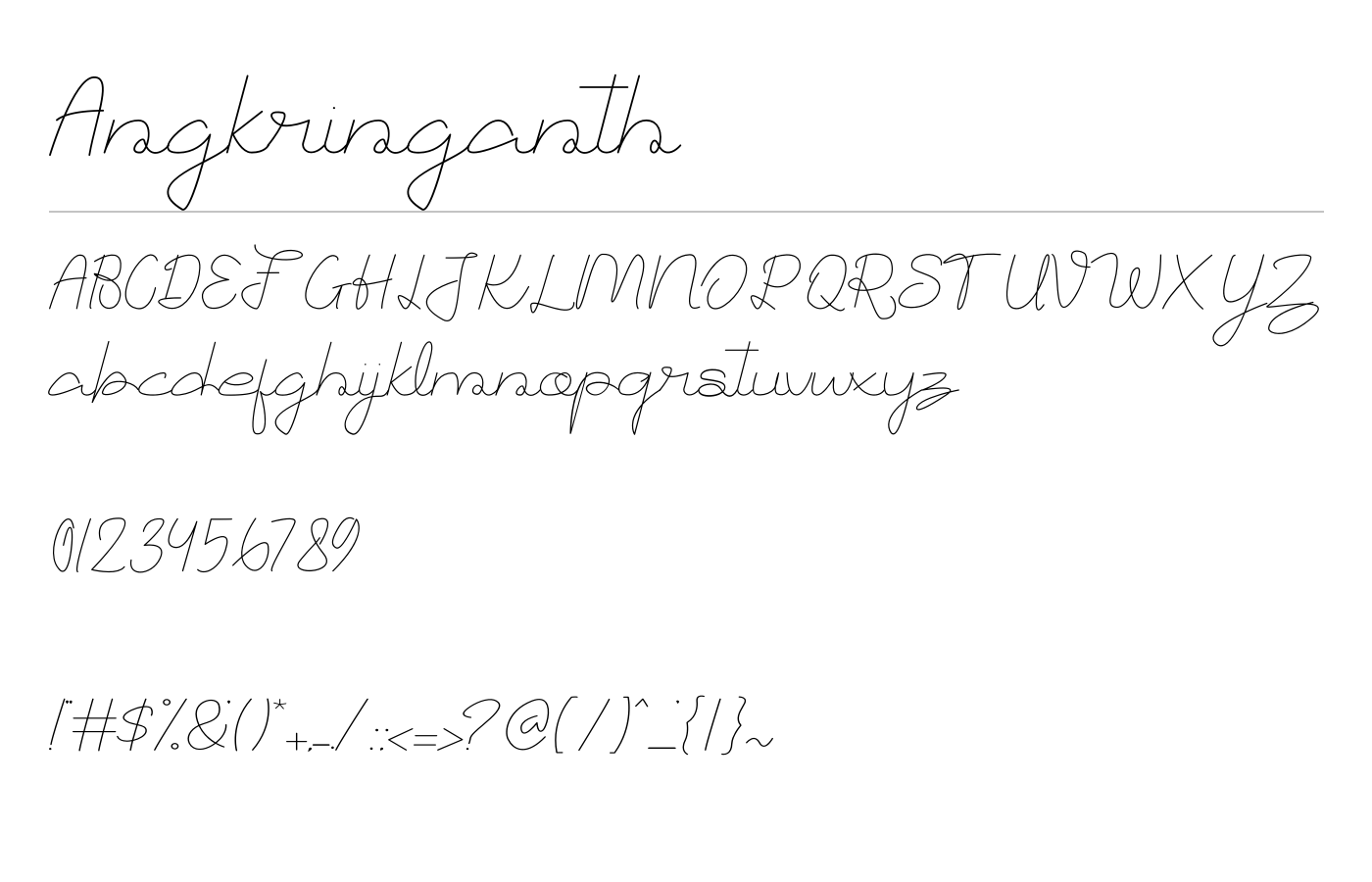
Angkringanth is a delicate, handwritten script font characterized by its thin, elegant strokes and airy letterforms that create a natural and personal feel. Its gentle curves and tall x-height give it a refined yet approachable style, ideal for casual branding, invitations, and creative projects seeking a light, whimsical touch. This font works beautifully in designs where a subtle, graceful handwritten aesthetic is desired.
Angkringanth Font
About Angkringanth Font